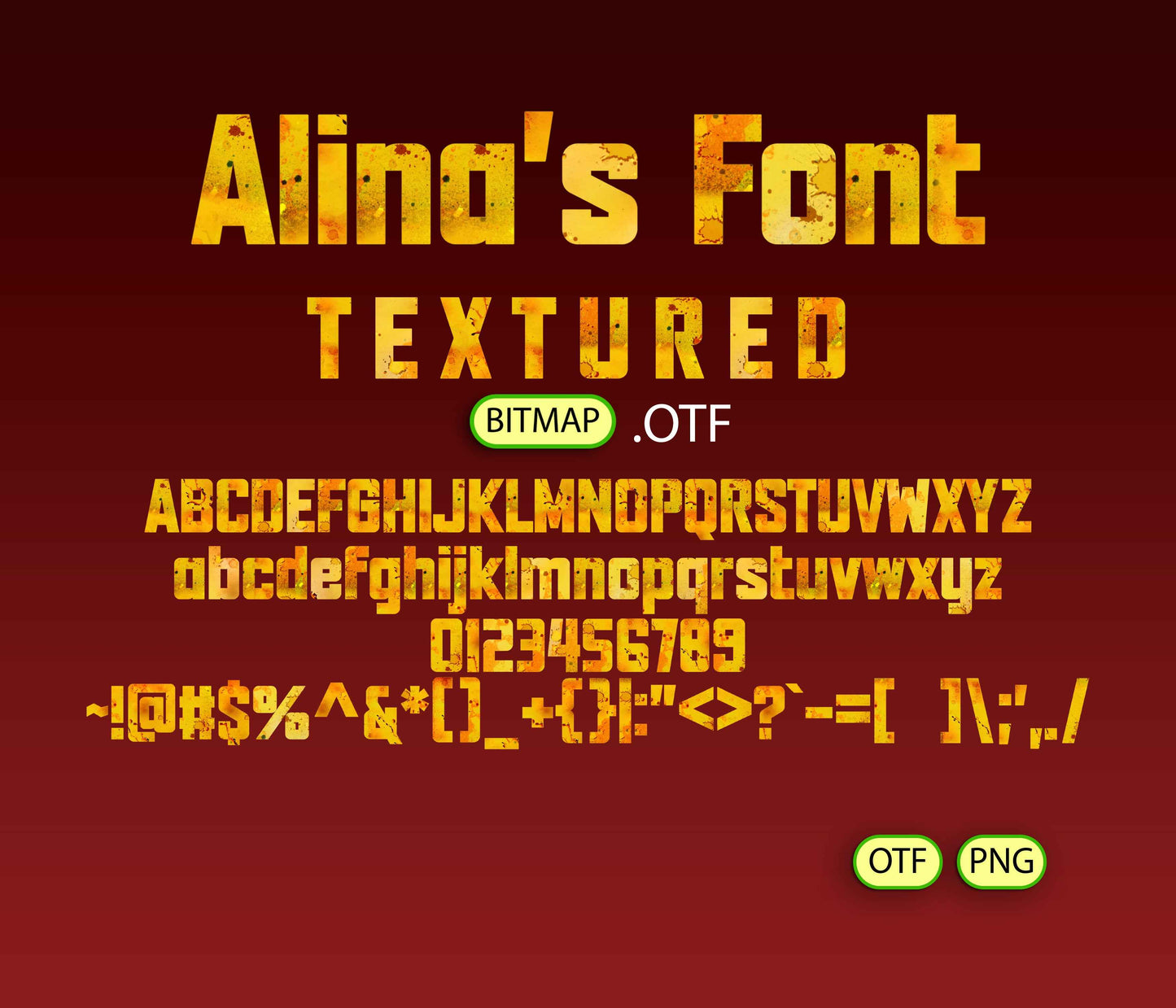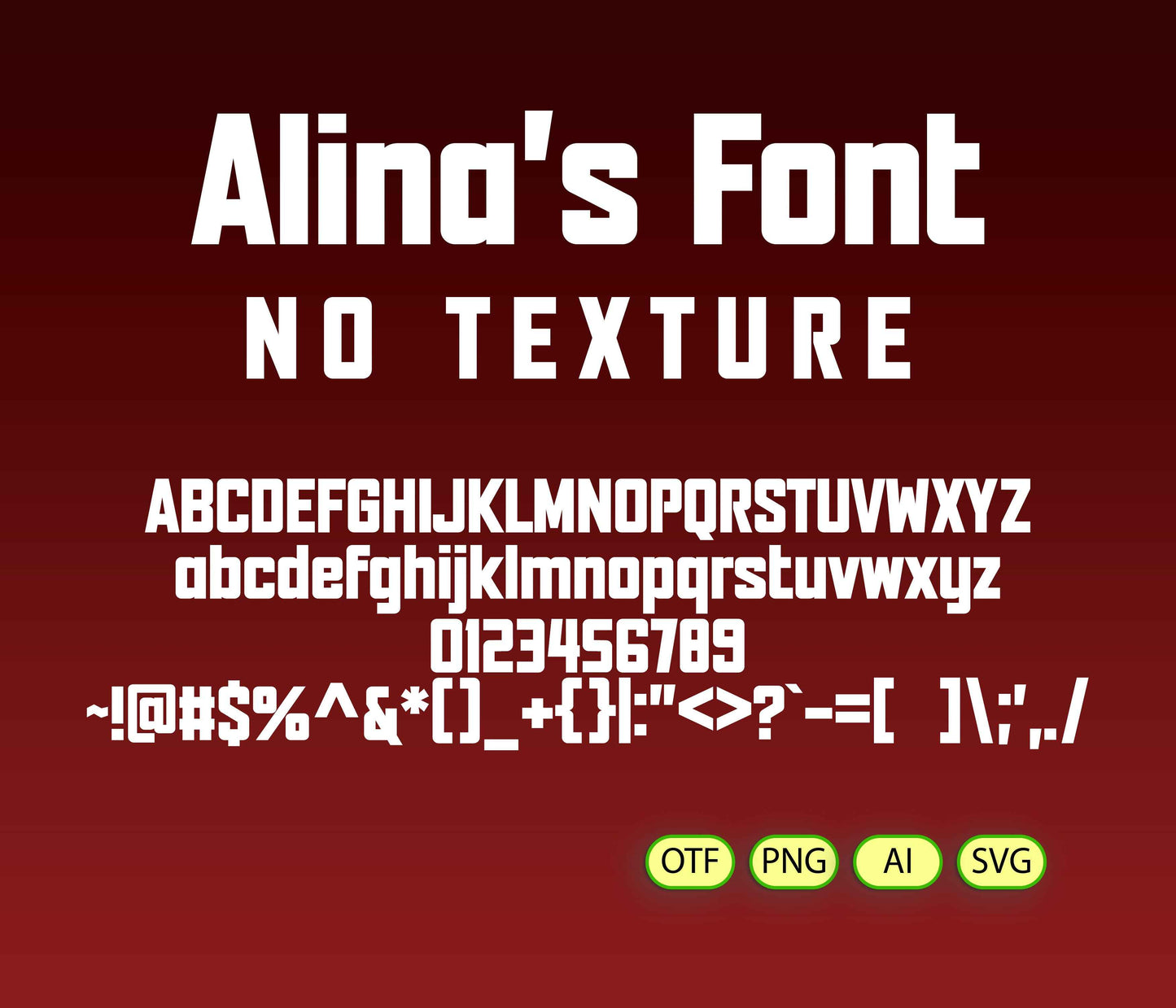
Apocalyptic Road Warrior Font Textured
Immerse yourself in the gritty, high-octane world of a post-apocalyptic wasteland with our specially designed font. This typeface captures the essence of the adrenaline-fueled saga known for its fierce female protagonist and jaw-dropping vehicular spectacles. Perfect for fans, event organizers, and designers, this font brings the raw, intense spirit of the dystopian action franchise to your creative projects.
What font is the Apocalyptic Road Warrior font?
Envision a typeface that embodies the film's rugged aesthetic - bold, weathered, and unapologetically fierce. Our font features strong, distressed letterforms that mirror the franchise's gritty visual style, complete with a touch of industrial rawness. It includes a comprehensive character set with alphabets, numbers, and special symbols, offering a versatile solution for various design needs.
What You Can Do With Apocalyptic Road Warrior Textured Font
This versatile font is ideal for a range of creative applications:
- Movie Night Invitations: Create eye-catching invites for film marathons or themed parties
- Fan Merchandise: Design striking t-shirts, posters, and collectibles for enthusiasts
- Digital Content: Enhance websites, blogs, and social media with powerful headers and graphics
- Event Decorations: Develop banners, signage, and props for conventions or themed events
- Automotive Branding: Use for logos or promotional materials in the custom car scene
- Book and Comic Design: Perfect for covers or chapter titles in post-apocalyptic narratives
- Music Promotion: Create album art or concert posters for heavy metal or industrial bands
- Video Game Assets: Design in-game text or promotional materials for dystopian-themed games
- Textured and Non-Textured Variants: Available in both a grungy, weathered style reminiscent of the film's look, and a clean version for versatile use
- Extensive Character Set: Offers a wide range of characters for complete design flexibility
The Apocalyptic Road Warrior font is more than just a typeface; it's a tribute to the iconic franchise that has redefined action cinema with its visceral storytelling and unforgettable characters.